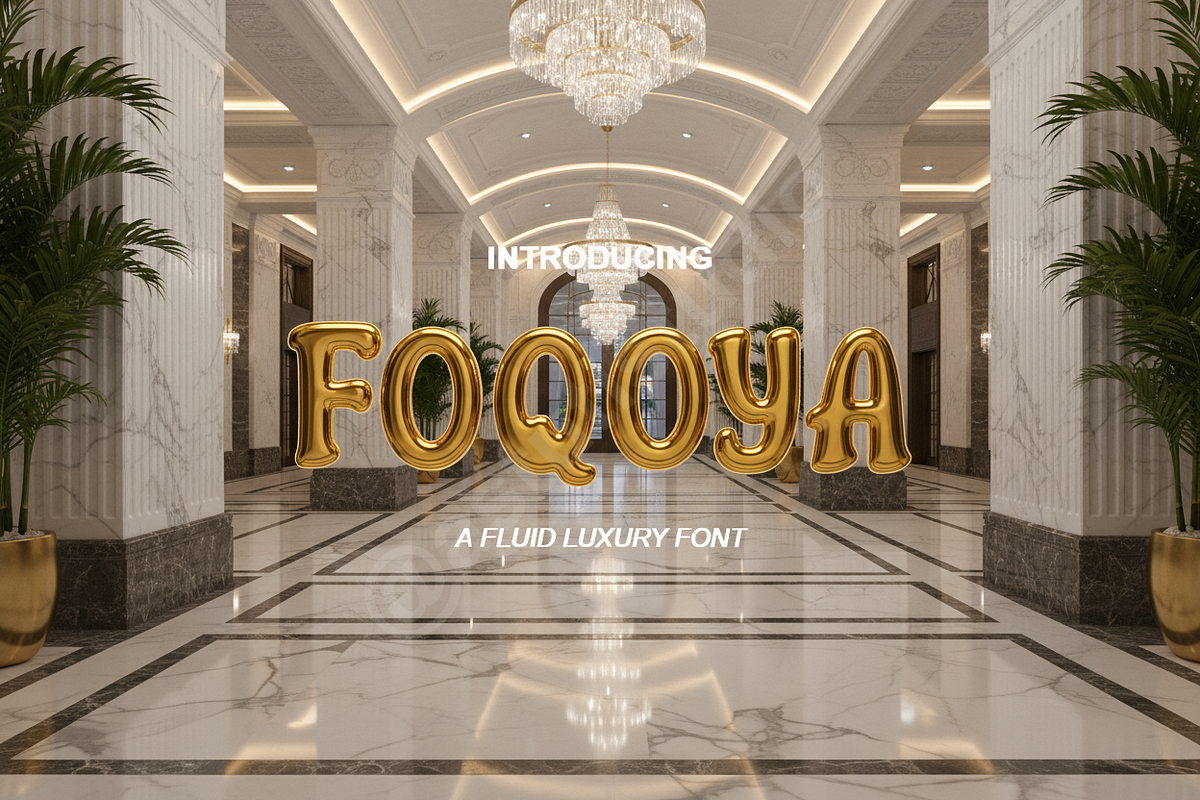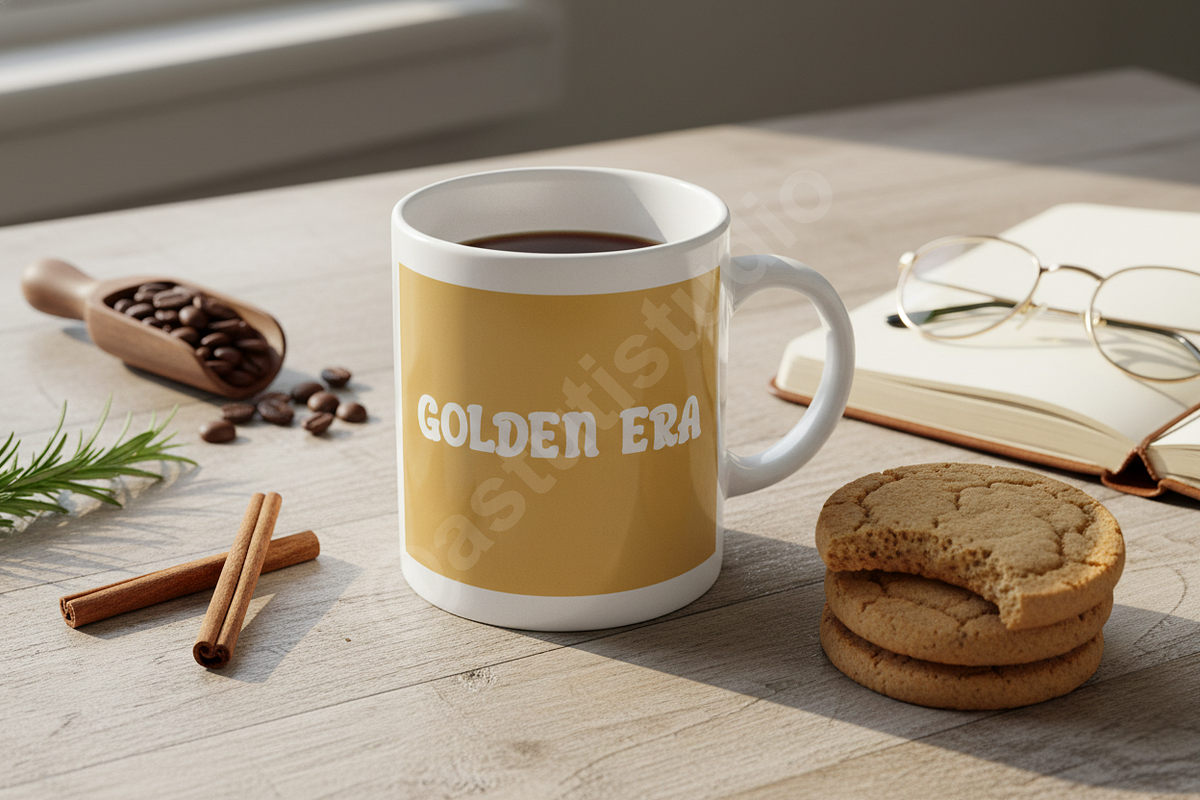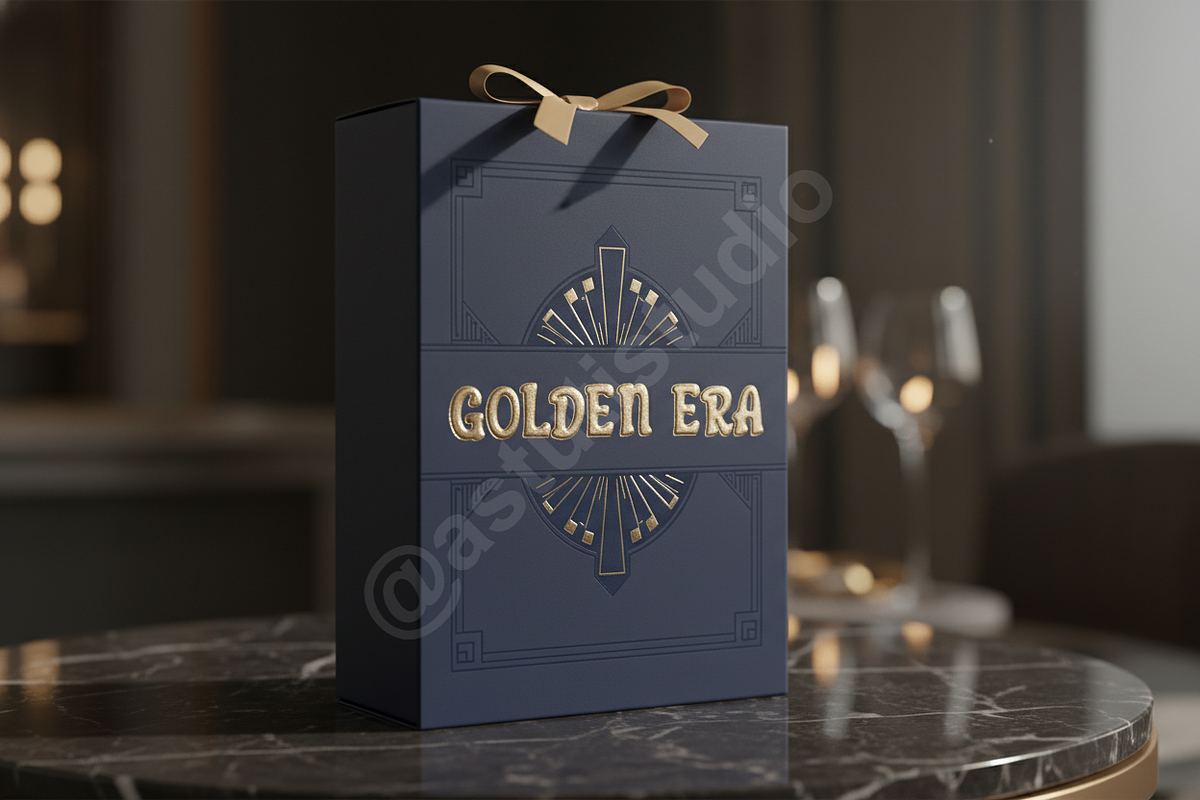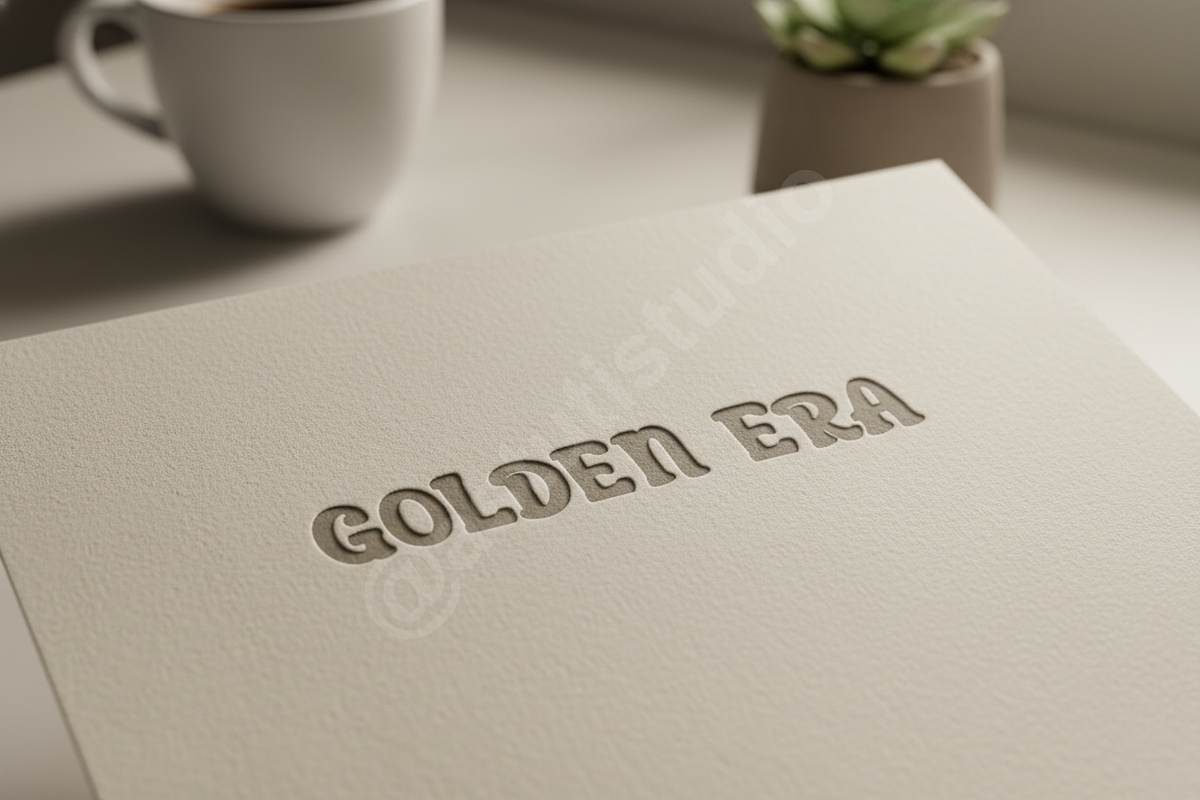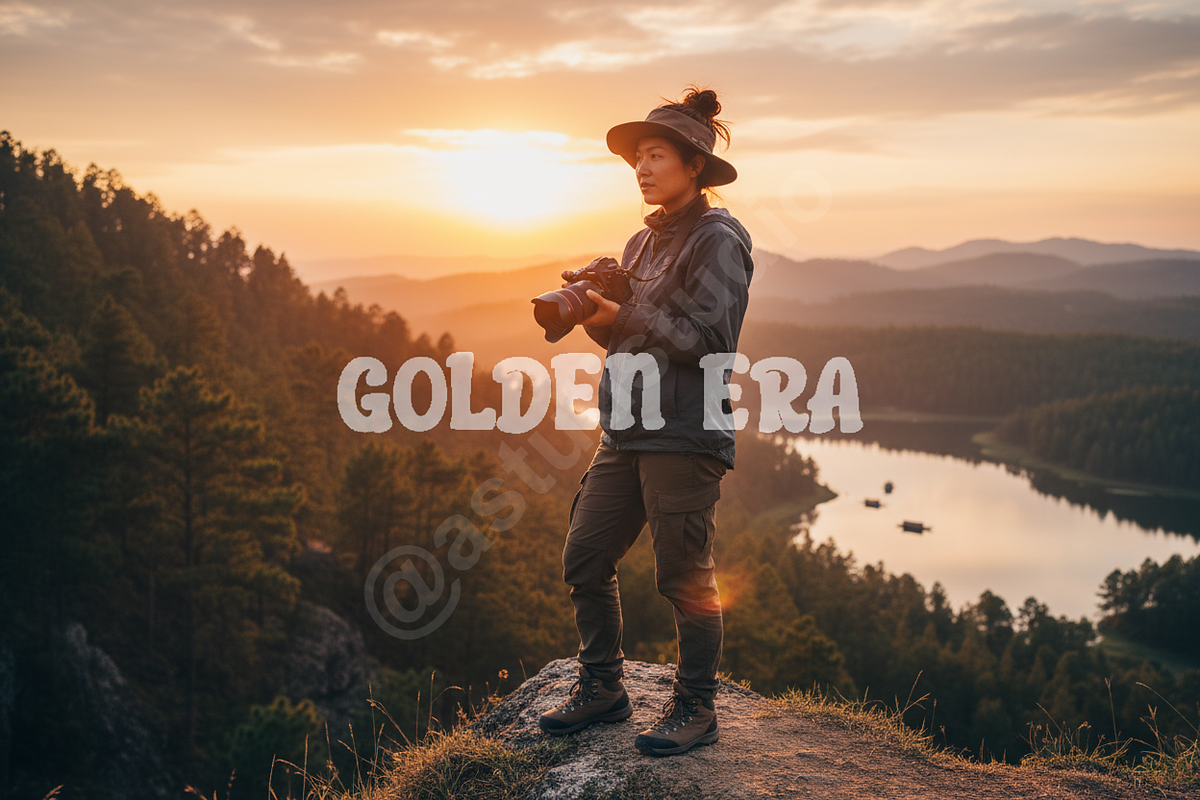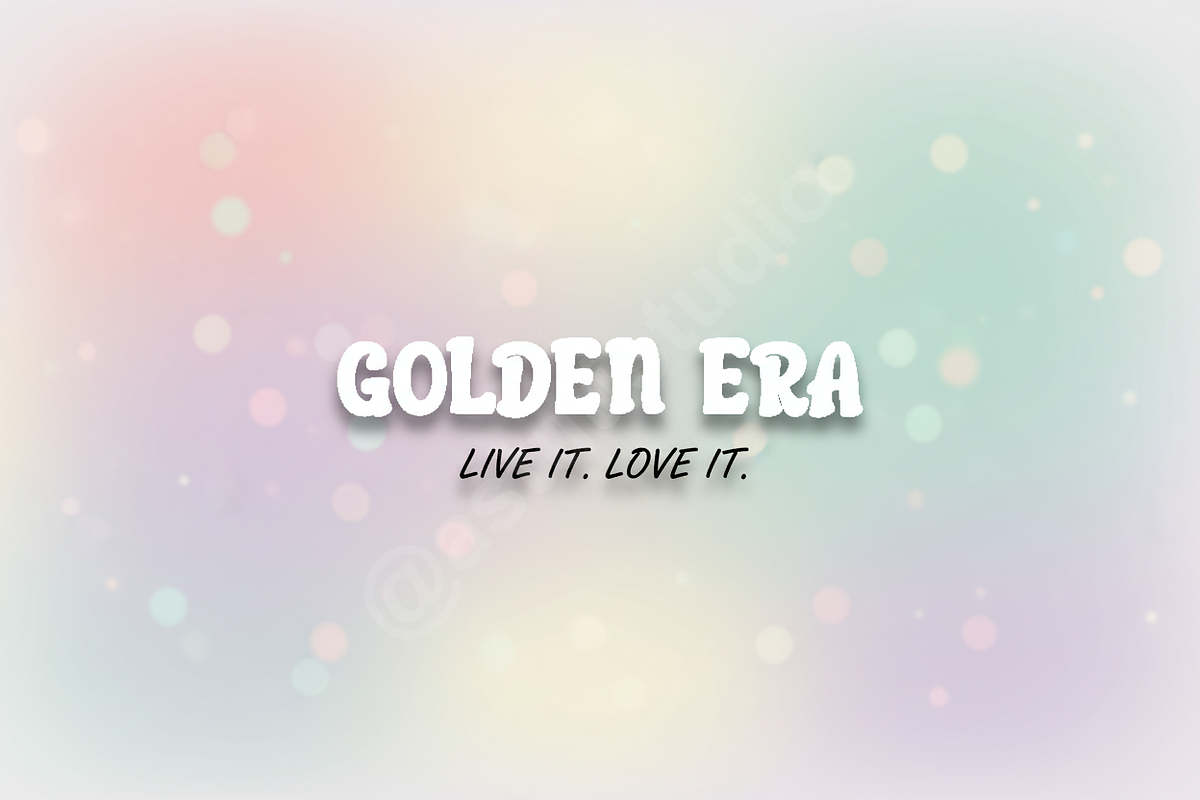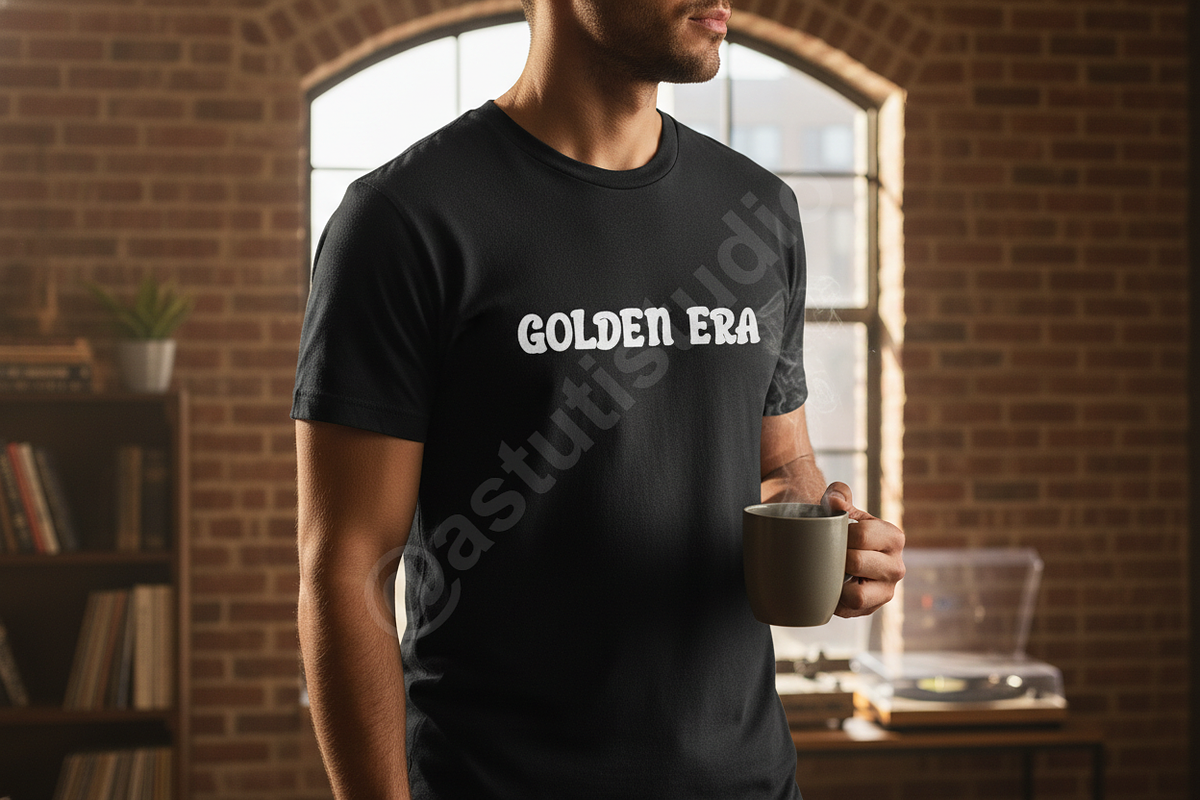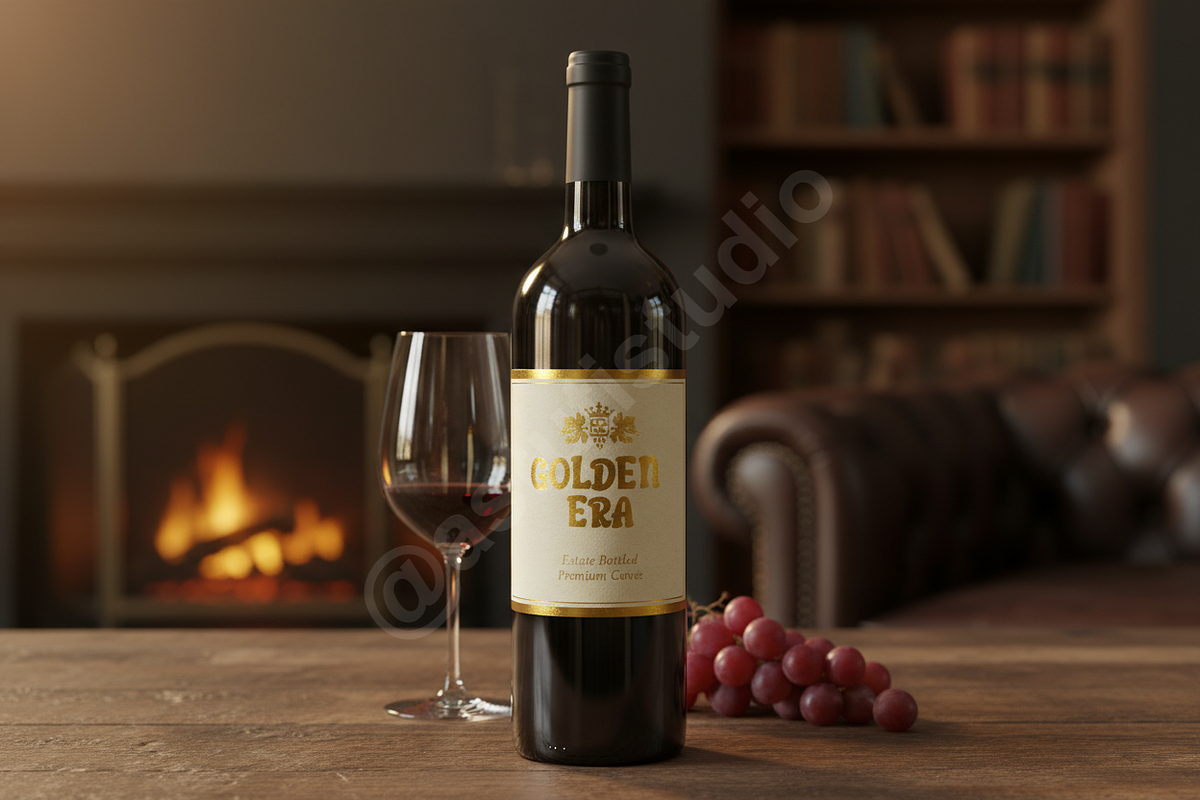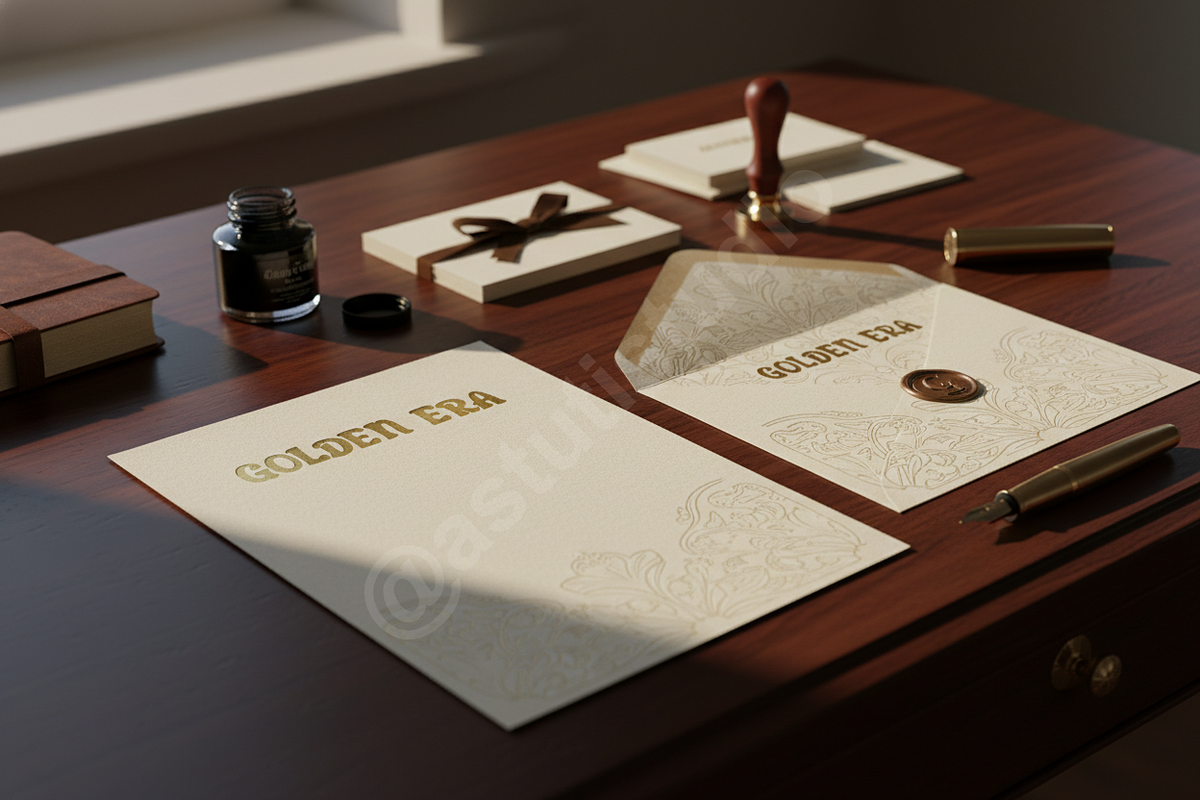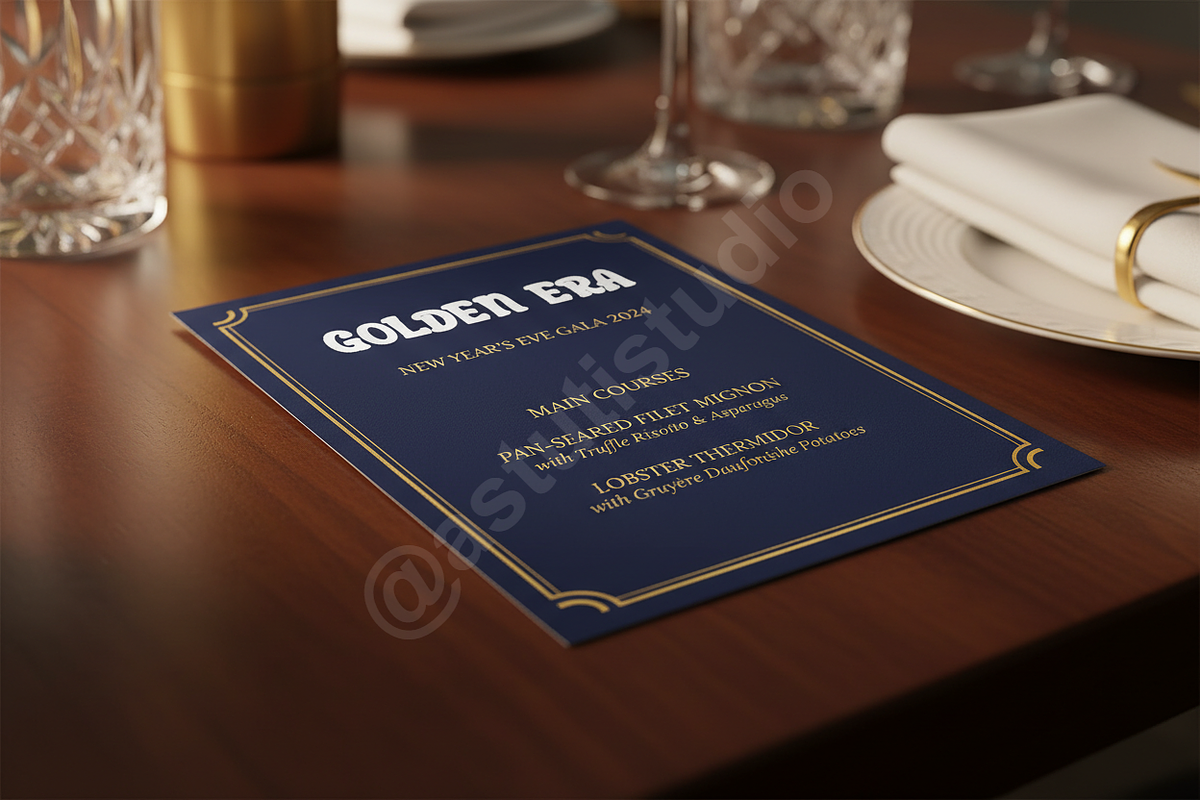
Foqoya – Elegant Luxury Branding Typ
Introducing Foqoya, an exquisitely crafted typeface designed to elevate your creative projects with an unparalleled touch of sophistication and luxury. Foqoya embodies a timeless elegance, making it the perfect choice for high-end branding, captivating editorial layouts, and impactful social media campaigns that demand attention. This premium studio product is meticulously designed to reflect a clean, professional, and elegant aesthetic.
- Distinctive Elegance: Each character is meticulously designed to convey refinement and exclusivity, ensuring your designs stand out.
- Versatile Application: Seamlessly transitions from bold headlines to subtle body text, maintaining its luxurious aesthetic across various mediums.
- Extensive Character Set: Includes uppercase, lowercase, numerals, punctuation, and comprehensive multilingual support for global reach.
- OpenType Features: Enhanced with elegant ligatures and stylistic alternates to offer endless creative possibilities and unique typographic flair.
- Optimal Readability: Engineered for clarity across various sizes and platforms, ensuring your message is always clear, distinguished, and impactful.